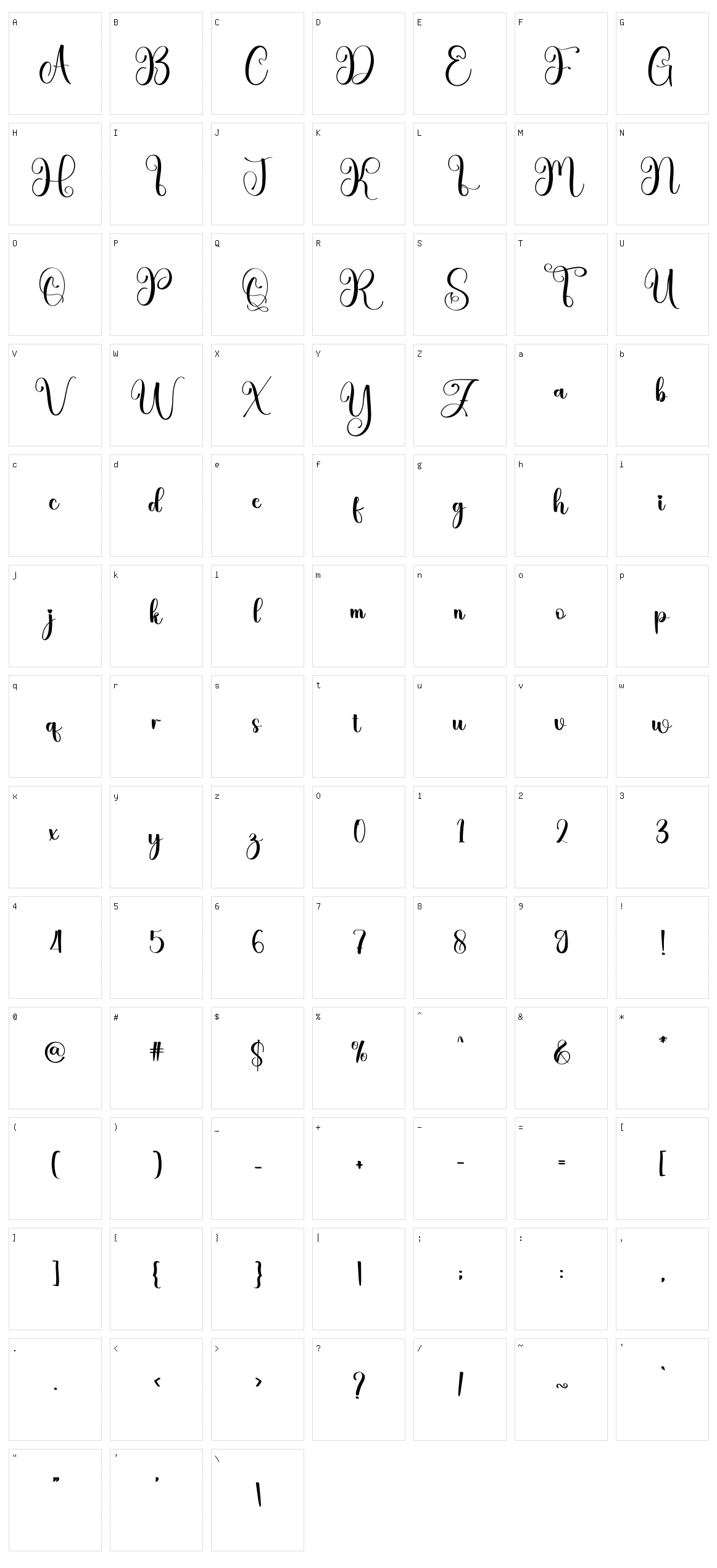
The free font Baby is carefully designed by Inermedia Studio, showcasing a thoughtful balance of creativity and usability and falls under the Script font style. When you download the ZIP file, it contains only 68.82 KB of font files, making it lightweight and quick to download. Please review the license details below to understand permitted usage and distribution rights. If license information is not available, we recommend using this font for personal projects only or contacting the author directly for commercial usage permissions.